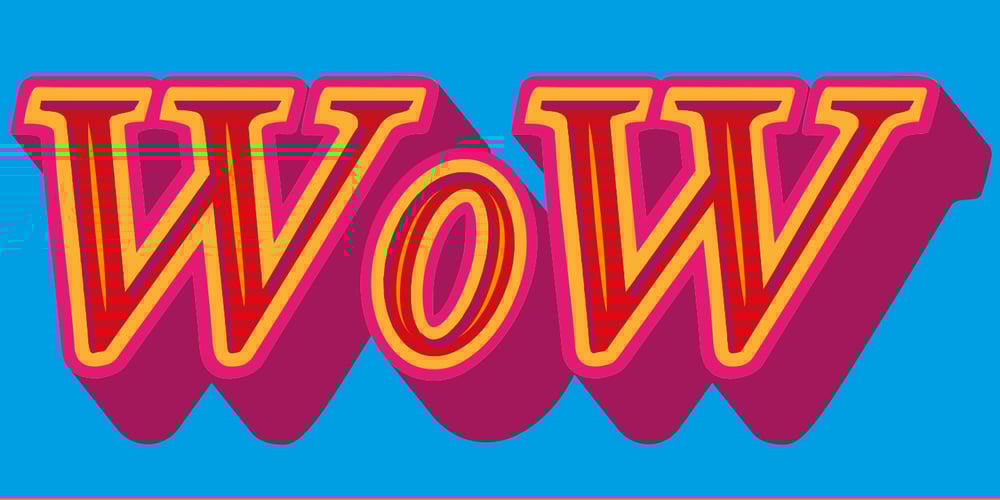
Ziletti Pop
Ziletti Pop font
Ziletti Pop Font Family was designed by Antonio Vignali and published by RM&WD. Ziletti Pop contains 7 styles and family package options. ZILETTI POP is a font used by Girolamo Ziletti in Venice in mid/late 1500. A typographic caracter characterized by a Venetian style cage with slight geometrical imperfections but with a great perceptual level. This is a multilayered variant with a wide range of possibility in variations in terms of end results. With the use of the color your artworks will have news optical effects. Ideal for Covers, Posters, Logos…